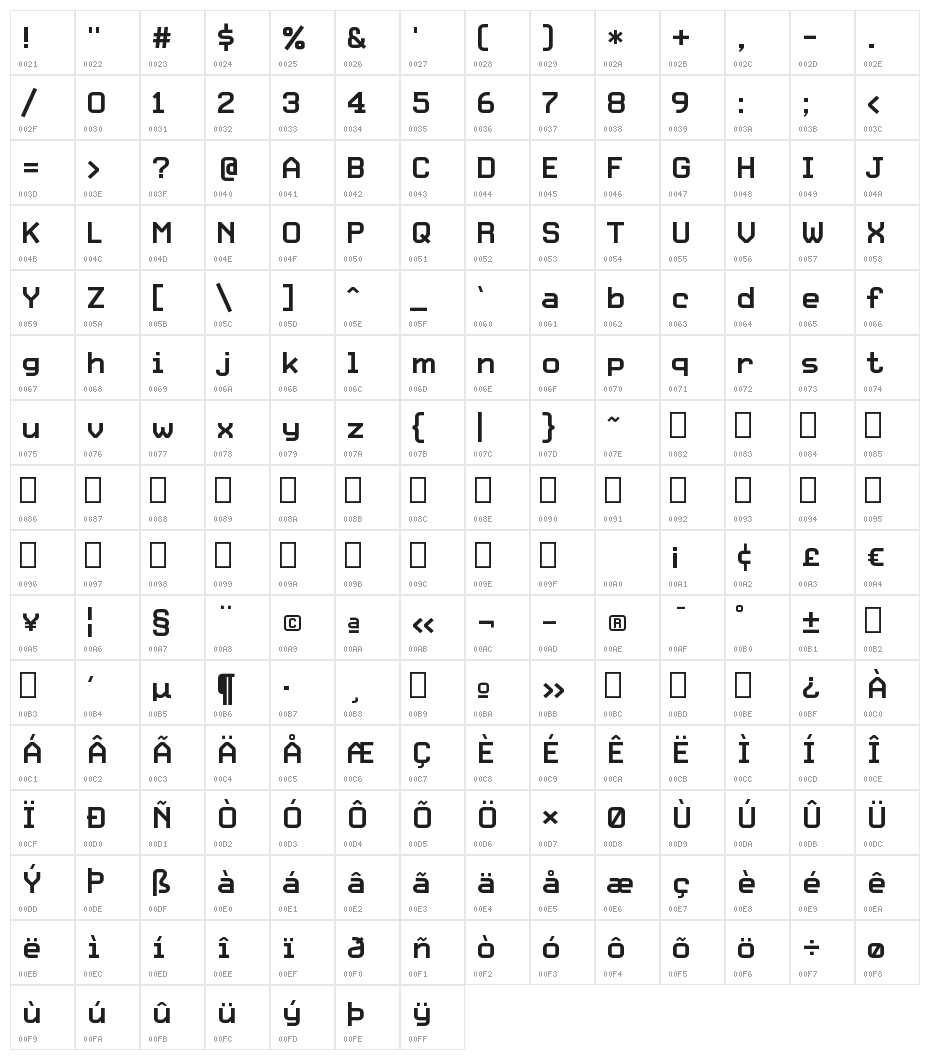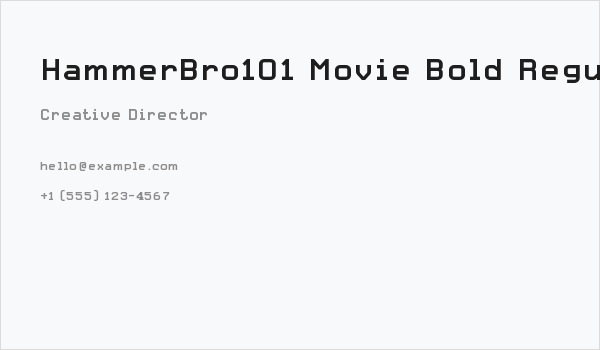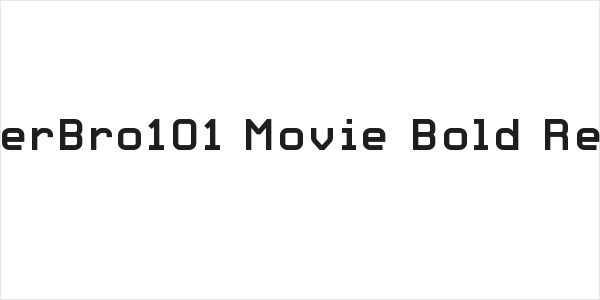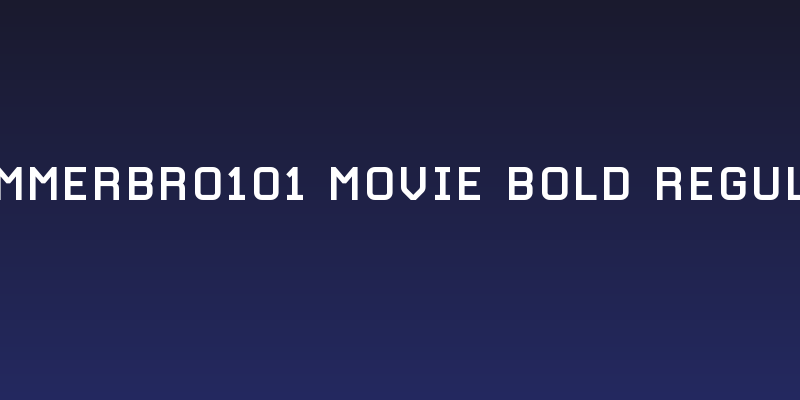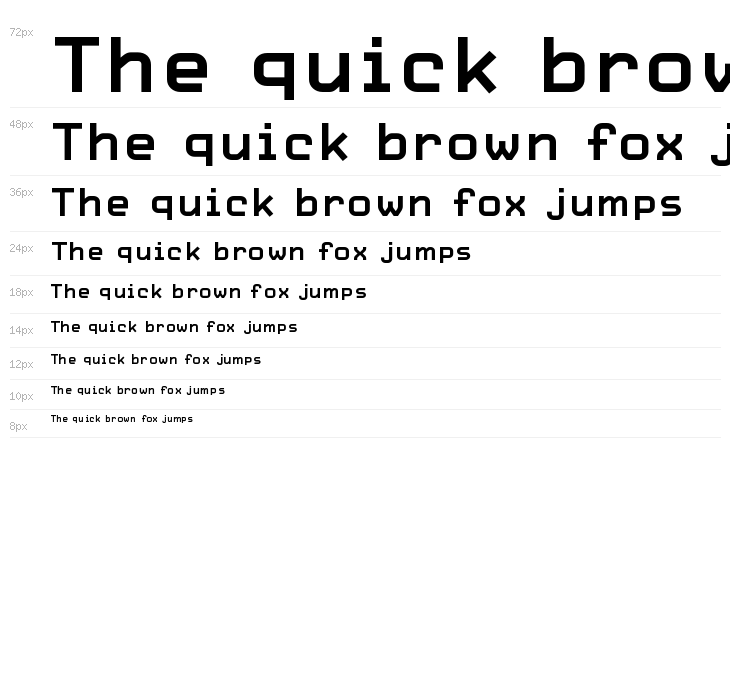
HammerBro101 Movie Bold Regular Font
HammerBro101 Movie Bold Regular Description
This font features a bold and geometric design with a modern aesthetic. The characters are constructed with consistent stroke widths, giving it a uniform and structured appearance. The uppercase and lowercase letters maintain a clear distinction, while the numerals and special characters are designed to complement the overall style. The font's clean lines and angular shapes make it suitable for a variety of design applications, offering a contemporary and professional look.
| Proposed Projects | Ideal for branding, headlines, posters, and digital media where a modern and bold statement is needed. |